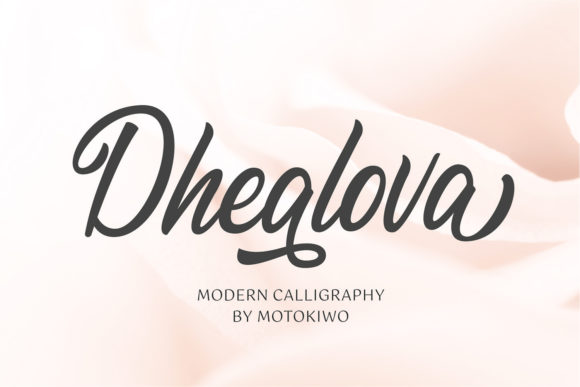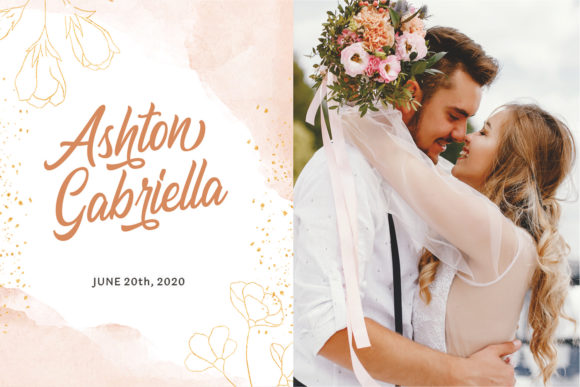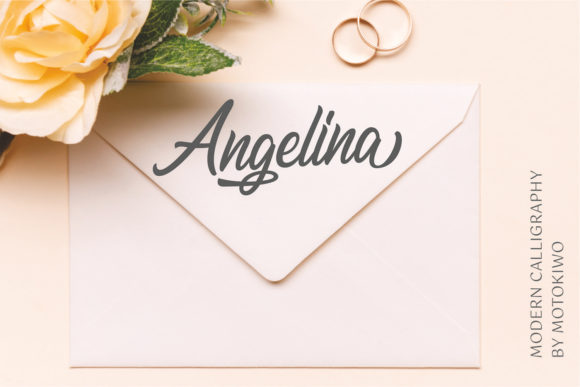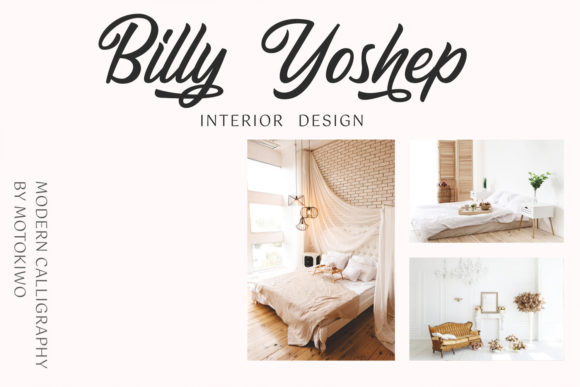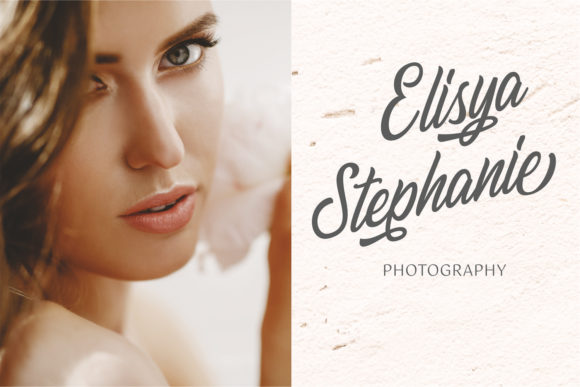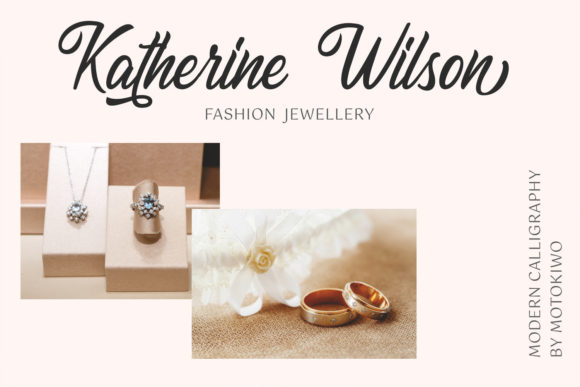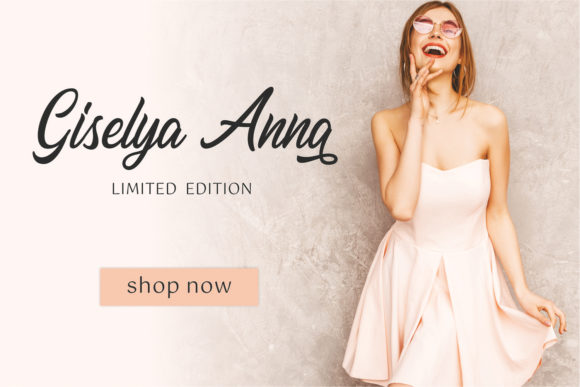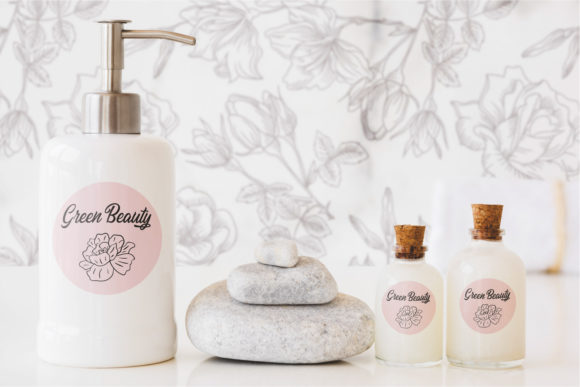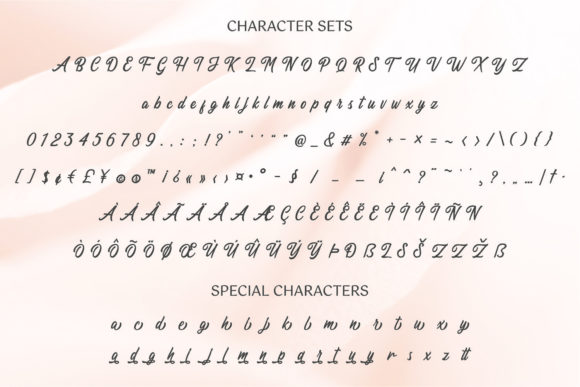
Dhealova Font
About Dhealova Font
Dhealova is a sweet and romantic handwritten font. It’s perfect for wedding invitations, posters, logos and much more.